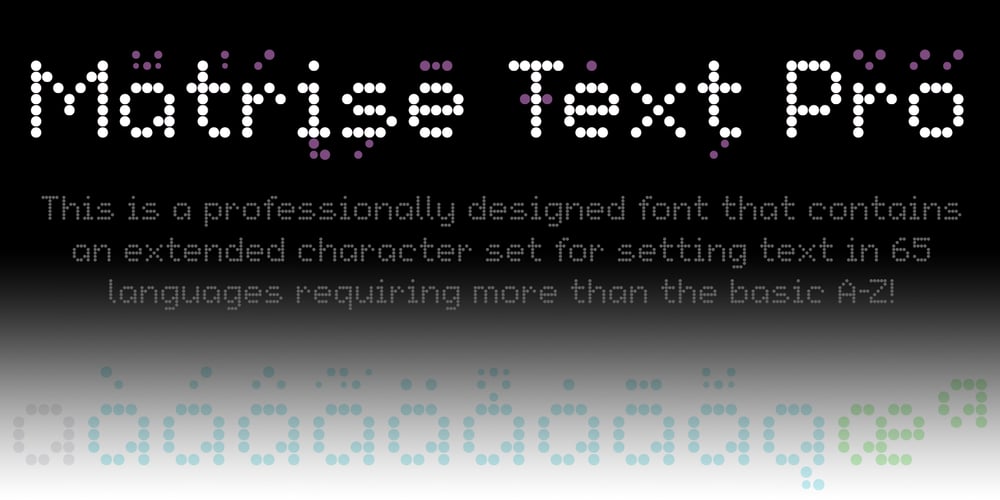
Matrise Text Pro Font Family was designed by Roger S. Nelsson and published by CheapProFonts. Matrise Text Pro contains 1 styles and family package options. A new font in the style of a dot matrix/needle-printer. I have used some slightly smaller dots when designing the diacritics – this makes them easier to separate from the main letters. I have also used variable letter widths (and kerning), as opposed to the technology’s original monospaced design – this to make the text more readable. Matrise Text Pro features a more “oldstyle” look with spurs and notches, while Matrise Pro has a more modern/streamlined design. ALL fonts from CheapProFonts have very extensive language support: They contain some unusual diacritic letters (some of which are contained in the Latin Extended-B Unicode block) supporting: Cornish, Filipino (Tagalog), Guarani, Luxembourgian, Malagasy, Romanian, Ulithian and Welsh. They also contain all glyphs in the Latin Extended-A Unicode block (which among others cover the Central European and Baltic areas) supporting: Afrikaans, Belarusian (Lacinka), Bosnian, Catalan, Chichewa, Croatian, Czech, Dutch, Esperanto, Greenlandic, Hungarian, Kashubian, Kurdish (Kurmanji), Latvian, Lithuanian, Maltese, Maori, Polish, Saami (Inari), Saami (North), Serbian (latin), Slovak(ian), Slovene, Sorbian (Lower), Sorbian (Upper), Turkish and Turkmen. And they of course contain all the usual “western” glyphs supporting: Albanian, Basque, Breton, Chamorro, Danish, Estonian, Faroese, Finnish, French, Frisian, Galican, German, Icelandic, Indonesian, Irish (Gaelic), Italian, Northern Sotho, Norwegian, Occitan, Portuguese, Rhaeto-Romance, Sami (Lule), Sami (South), Scots (Gaelic), Spanish, Swedish, Tswana, Walloon and Yapese.